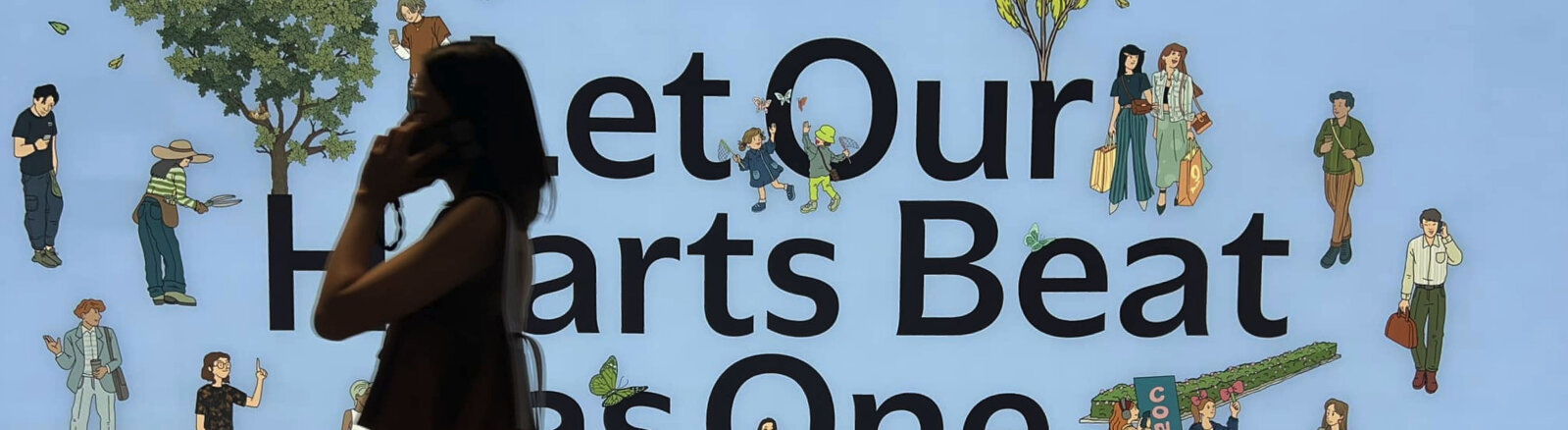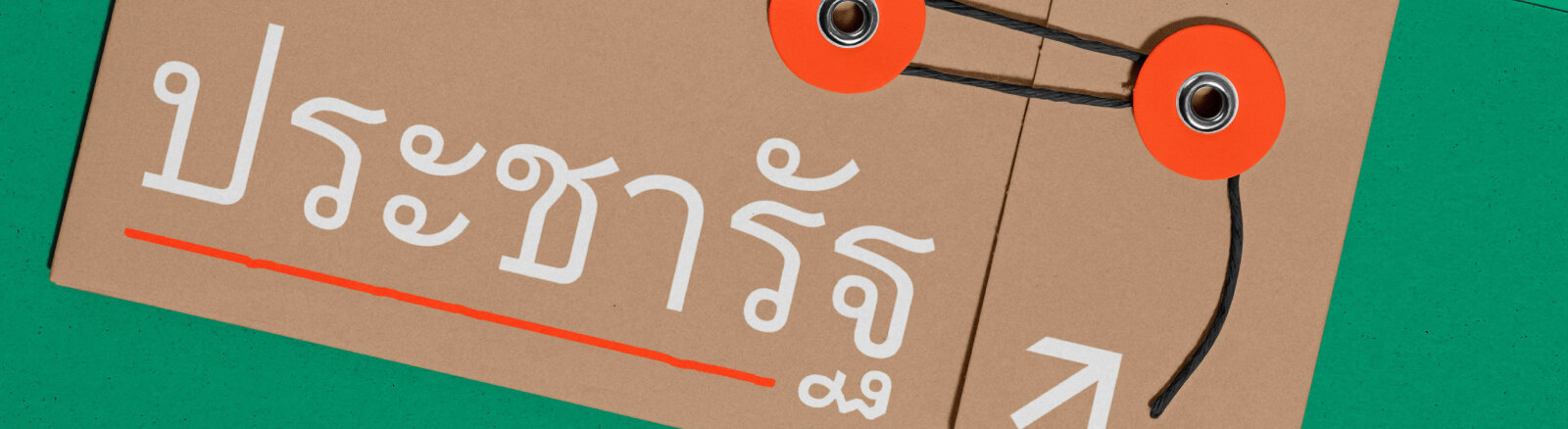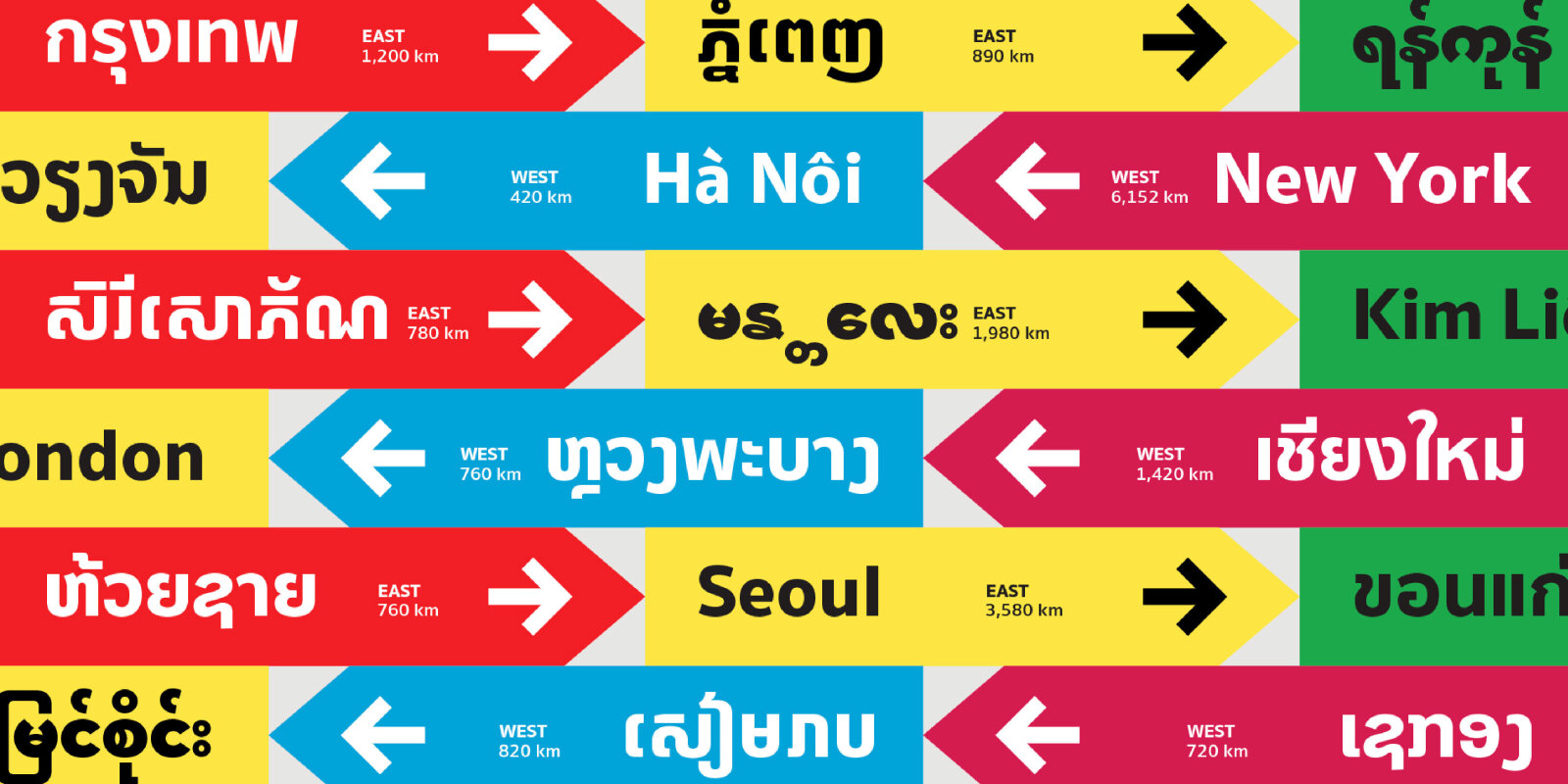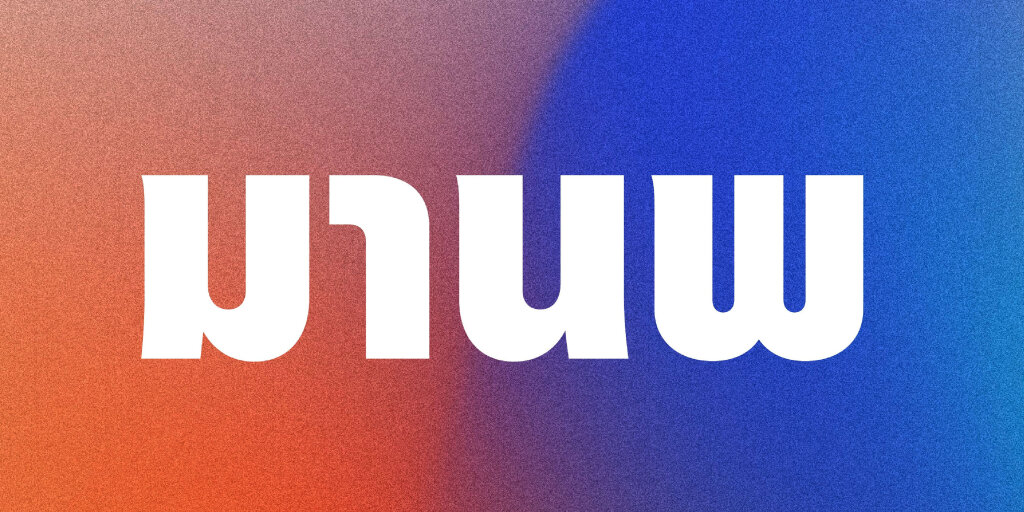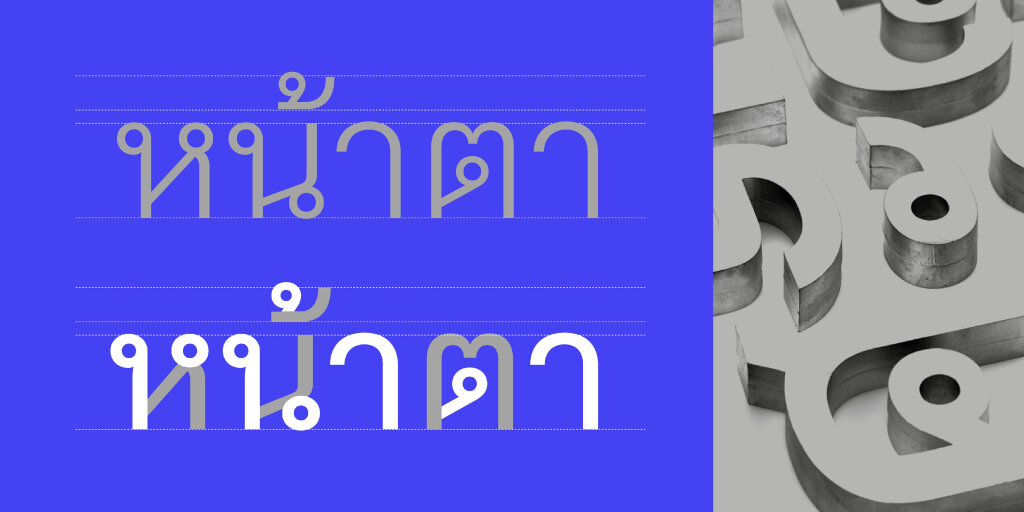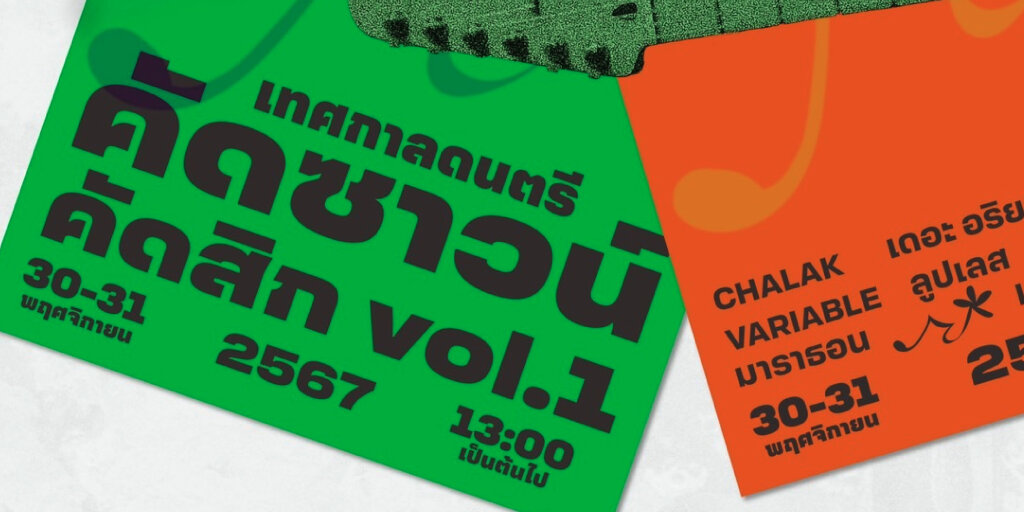
Cadson Demak
Cadson Demak is a Southeast Asian type foundry, and was established to enhance the quality of typography in Thailand and the region. Initially focusing on communication design, the company evolved into a specialist in type design, crafting custom fonts for major industries and becoming a leader in the local retail font market. The name, translating to "very well selected," reflects the firm's commitment to providing quality solutions for clients.
KC BanthatThong Text & Display by Knaz Uiyamathiti (First Prize – Southeast Asian Scripts 2024)
BITS11
The symposium facilitates connections that foster collaboration and business opportunities while promoting diversity and inclusivity among designers, particularly those who work with non-Latin scripts. This event aims to strengthen ties between Southeast Asia and the global design community, encouraging international dialogue.
Manop
is a typeface that is revived from LC Manop (Light Condensed Manop) from just a single weight to a Variable font (27 Styles). Manop’s design was based off of distinctive characteristics from its predecessor. Manop also introduced alternate characters for users to pick and choose from.
Thonglor Soi 4
is Thonglor’s successor which is a contemporary looped Thai typeface. It has been re-scaled along with updating drawings to optimize the typeface for usage on screens. It currently supports 8 weights and 8 styles providing a wide range of usage across screen-based medias.
Chalak
is a sans-serif typeface designed specifically for use in limited spaces, such as product labels. Its condensed design increases white space within the text, improving readability in narrow areas. The font was developed to address legal restrictions on text size in product warnings, resulting in nine weights and four widths, from X Compressed to X Wide, offering a total of 72 styles.
One Bangkok Text & Display by Knaz Uiyamathiti (Second Prize – Southeast Asian Scripts 2024)
What are the challenges and opportunities in designing multiscript fonts?
Creating multiscript fonts comes with challenges such as respecting different cultures, keeping a consistent look across scripts, and ensuring readability. Each script has its unique features, and designers must figure out how to make them work together smoothly. Additionally, fonts need to be accessible on various devices and platforms, adding to the complexity.
How do you see multi script typography develop and used now and in the next decade?
As the world becomes more interconnected, the need for fonts that support multiple languages is growing. Multiscript fonts not only celebrate various cultures but also promote collaboration among designers from different backgrounds. By catering to diverse languages, these fonts can help close communication gaps and highlight cultural diversity in digital environments.
Sukhumvit SEA is a multi-script font family that features fully rewritten characters and adjusted widths to enhance modern usability.
Cadson Demak has had major influence on Thai design, with its typefaces seen everywhere, from utility bills and magazines to websites, store signs, and restaurant menus. Founded in 2002 by Pongthorn Hiranpruek, Burin Hemthat, and Anuthin Wongsunkakon, the company began at a time when design was just gaining recognition in Thailand’s business world. Before this, limited knowledge sharing and lack of technical expertise in digital font creation were common challenges. Cadson Demak aimed to fill this gap by focusing on quality type design that combined local creativity with global standards. Initially working in graphic design and publishing, the company shifted to type design by 2008, gaining a reputation for custom fonts for industries like telecom and retail while also expanding into the retail font market.
The company has also played a key role in connecting Thai design to the international community. It organizes BITS (Bangkok International Typography Symposium), the first typography forum in Southeast Asia, and Pieces, an event showcasing regional graphic design and global trends. The name Cadson Demak, meaning “very well selected” in Thai, reflects its focus on finding the best solutions for its clients. Over the years, Cadson Demak has grown to include specialized subsidiaries, such as Cadson Aksorn for Southeast Asian scripts, Katatrad Aksorn for font production, and Samatapaph for corporate identity design, strengthening its influence in typography and design across the region.
Pracharath – Looped Typeface